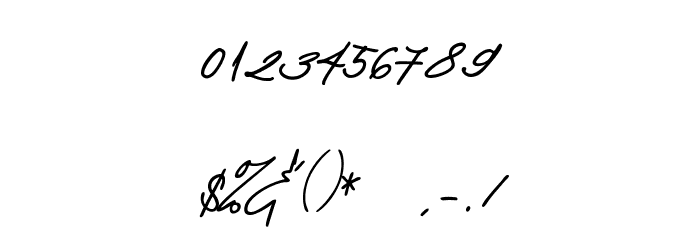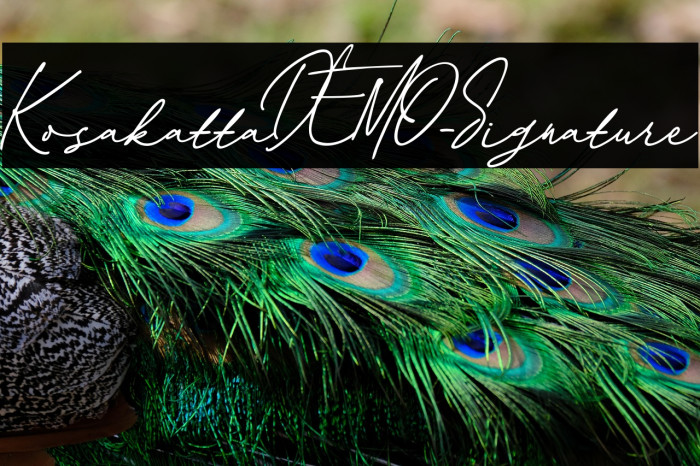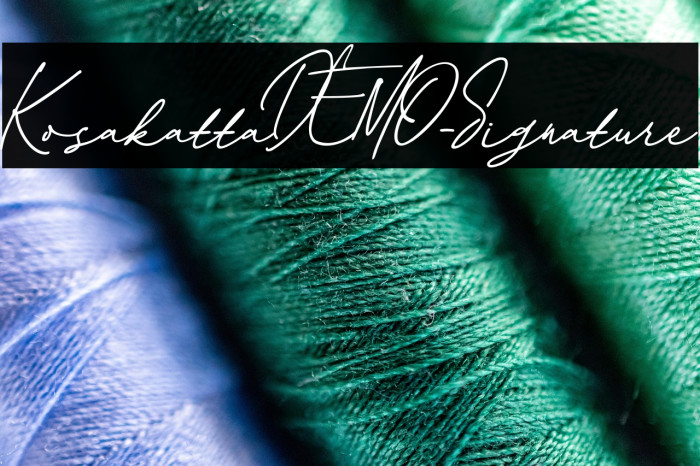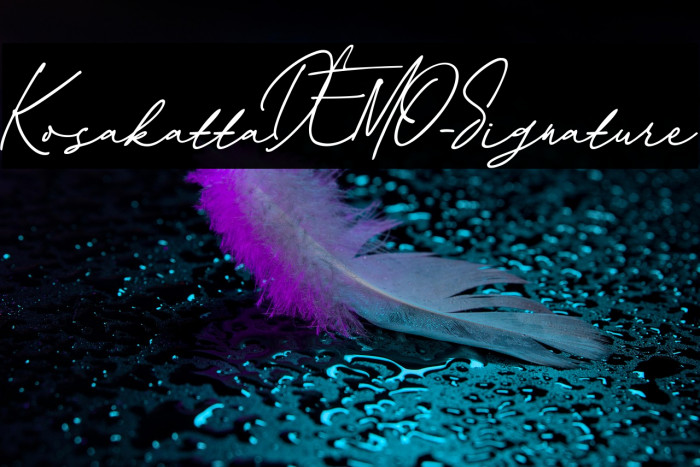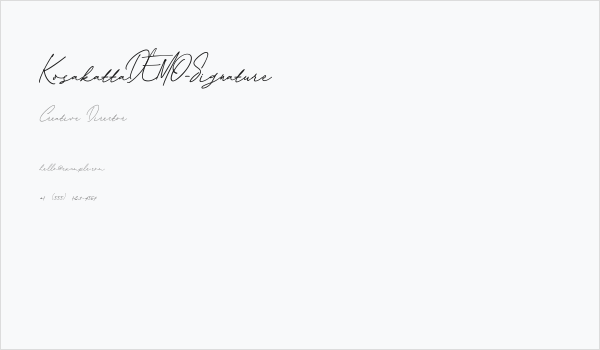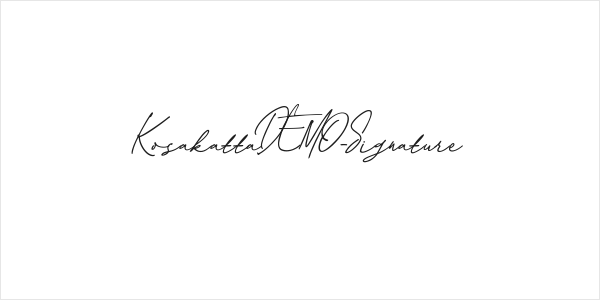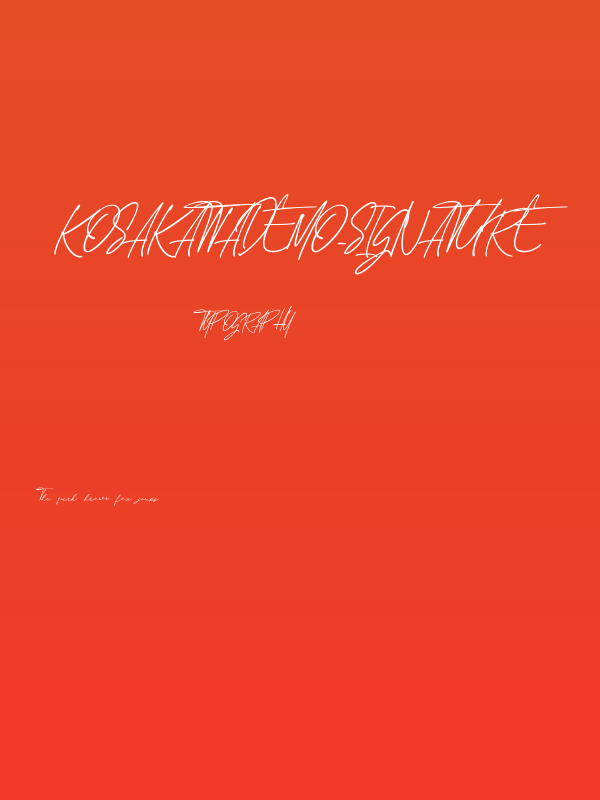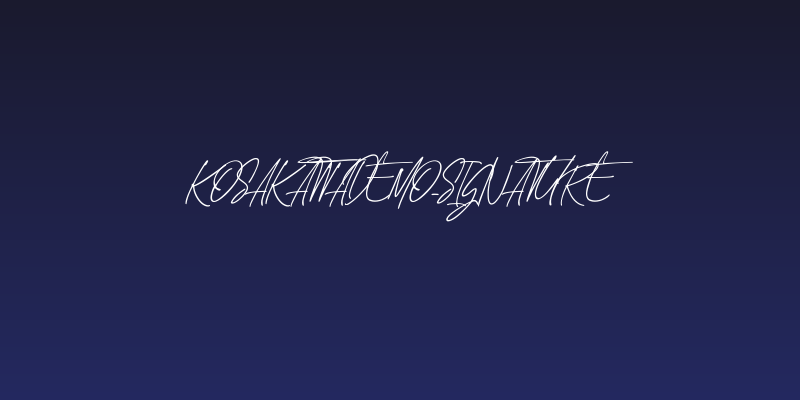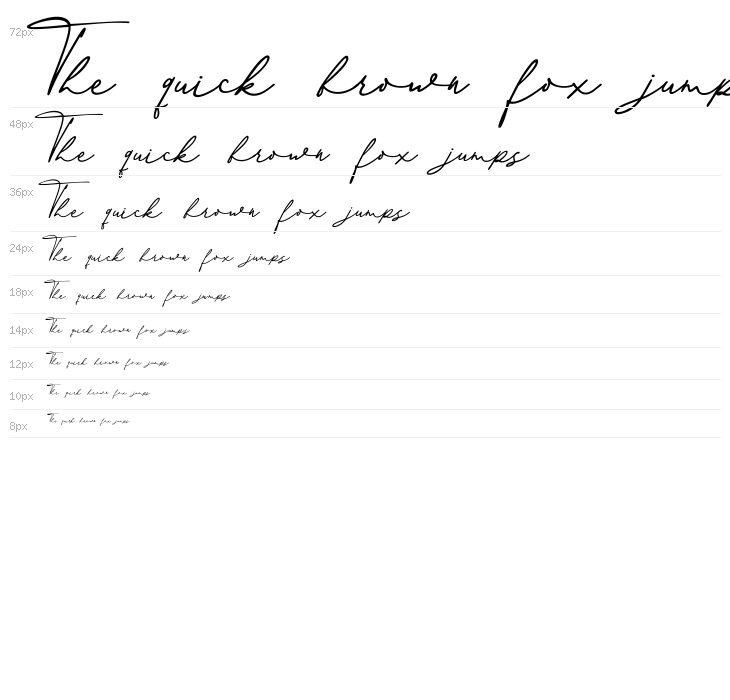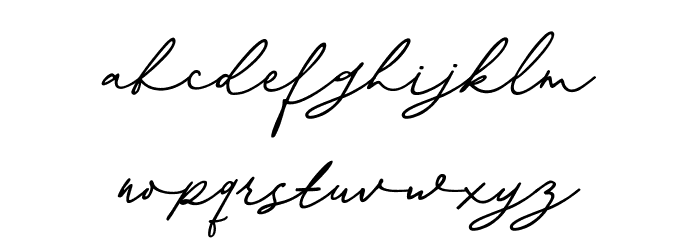
KosakattaDEMO-Signature Font
KosakattaDEMO-Signature Description
This font exudes a stylish and elegant handwritten aesthetic, characterized by its fluid and cursive strokes. The uppercase letters are bold and dynamic, with a sense of movement that suggests a personal signature. The lowercase letters maintain a consistent flow, offering a more refined and delicate appearance. Numbers and special characters are seamlessly integrated, maintaining the overall cursive style. The font's design is both sophisticated and approachable, making it suitable for a variety of creative applications.
| Use Case | Logos, Invitations, Personal Signatures |
| Proposed Projects | Ideal for branding, invitations, personal signatures, and creative projects that require a touch of elegance and personality. |